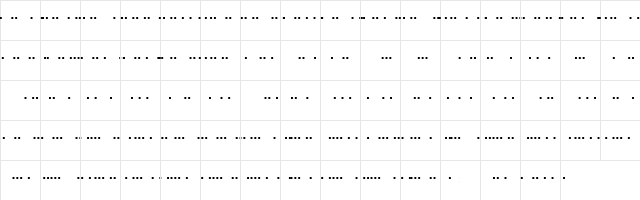
MC morse_VanDuuren_7_Unit Regular
| Designer | Marek Cerajewski |
Design Context for MC morse_VanDuuren_7_Unit Typeface
MC morse_VanDuuren_7_Unit is a composed and adaptable typeface that performs quietly and consistently across a wide range of design contexts.